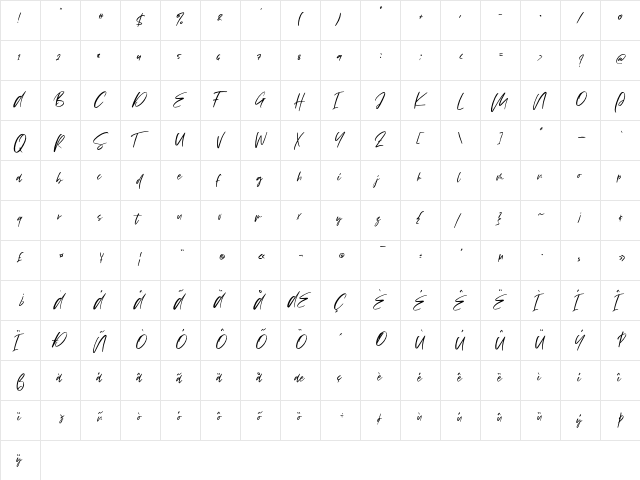
Vezthisory Regular
Design Context for Vezthisory Typeface
Vezthisory is a composed and adaptable typeface that performs quietly and consistently across a wide range of design contexts.
Pro Tip: Use Vezthisory in both headline and body roles to test its range before committing to a single application.